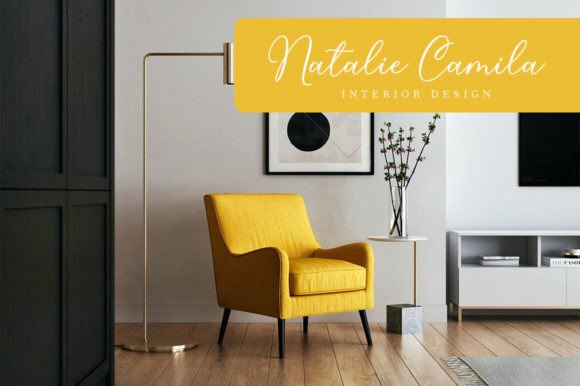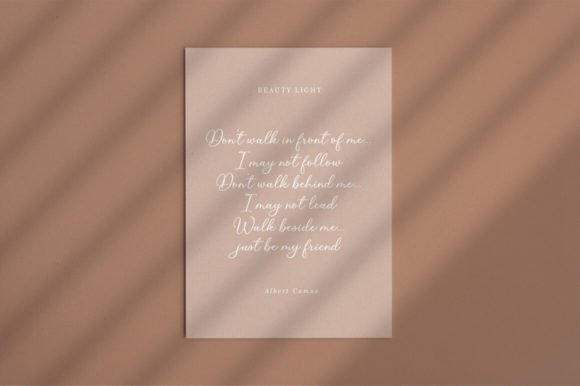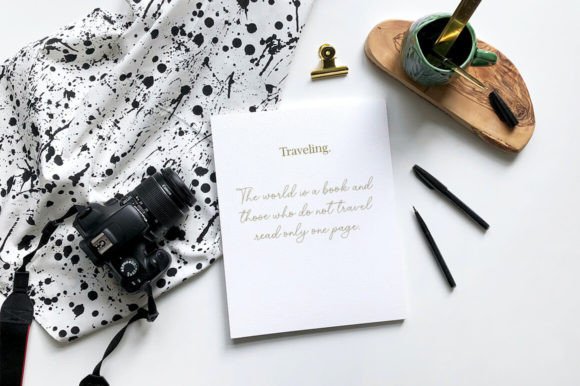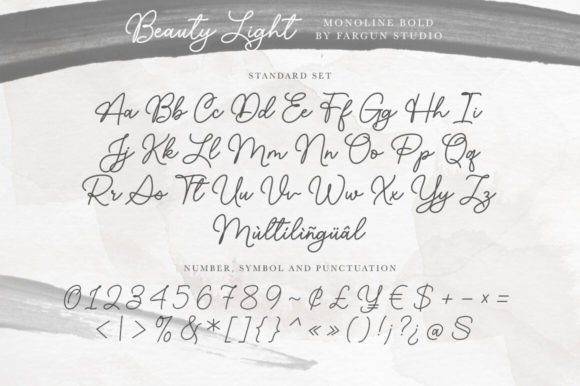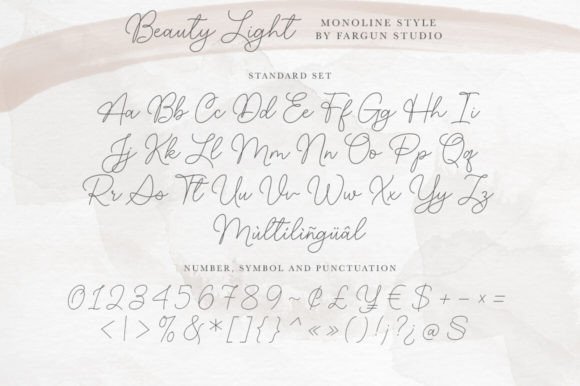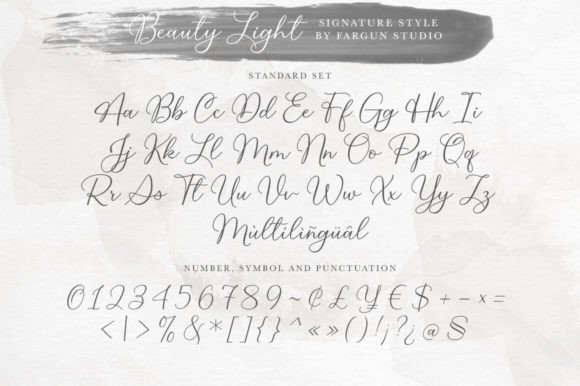
Unlock the Magic of Beauty Light Font
Imagine you’re sipping coffee on a lazy Sunday morning, flipping through a beautifully designed wedding invitation or a stylish logo. The delicate curves, the elegant swashes, and the seamless connections between words transport you to a world of sophistication and charm. This is the moment when the right font can make all the difference – and that’s exactly what the Beauty Light Font is designed to do.
This exquisite interconnected script font is more than just a pretty face; it’s a versatile tool for designers who crave a unique and elegant look for their projects. Whether you’re crafting wedding correspondence, designing a corporate identity, or creating inspirational quotes for social media, Beauty Light Font has got you covered. With its extensive range of swashes and linking elements, this font is a game-changer for anyone looking to elevate their design to the next level.
Beauty Light Font Key Features
- Font Family: Offers a range of styles, including Light, Regular, and Bold, to cater to various design needs.
- Character Set: Supports a wide range of languages, including Latin, Cyrillic, and Greek, making it suitable for global designs.
- Unique Characteristics: Features a modern and elegant design aesthetic, with subtle light effects that add a touch of sophistication to any text.
Beauty Light Font Review
Overall, I have mixed feelings about the Beauty Light Font. It’s a great font for creating eye-catching titles and headings, especially when combined with the right design elements. ✨ The font’s elegant and modern style works well in both digital and print media. However, it’s not without its limitations.
The font is particularly well-suited for designs that require a touch of sophistication and glamour. ✨ It pairs nicely with metallic and neon colors, making it a great choice for beauty and wellness brands. ✨ Additionally, the font’s cursive script is easy to read and adds a personal touch to designs.
- ⚠️ The font may be too ornate for some designs, particularly those that require a more minimalist approach.
- ⚠️ Some characters, such as the ‘a’ and ‘e’, may be difficult to read in certain contexts.
- ⚠️ The font may not be as effective for body text, as it can be overwhelming and difficult to read in large quantities.
Overall, I would recommend the Beauty Light Font for designers who are looking to add a touch of elegance and sophistication to their designs. However, it’s essential to use it judiciously and in combination with other design elements to avoid overwhelming the viewer.
The Beauty Light Font is ideal for:
- Beauty and wellness branding
- High-end fashion and luxury design
Alternatives to “Beauty Light Font” for Designers
Great Vibes is a modern, elegant script font that is perfect for creating a sophisticated and luxurious feel. It’s ideal for use in logos, branding, and advertising materials. Great Vibes has a more refined and polished look compared to Beauty Light Font, making it suitable for high-end products and services.
Comparison: Great Vibes has a more elegant and refined feel, while Beauty Light Font has a more playful and whimsical touch. Great Vibes is better suited for corporate and luxury brands, whereas Beauty Light Font is more versatile and can be used in a variety of contexts.